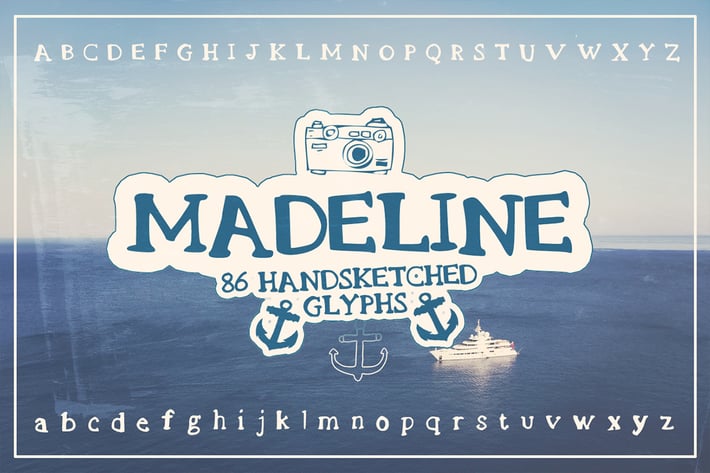
Madeline Handsketched Font
Introducing the first font from Layerform.com, we are proud to present this cute handsketched Font for you all. It comes in .TTF format and has a friendly, cute feel to it.
It was made by sketching out the Glyphs and meticulously scanning them in one by one and composing them digitally. The overall feel of the font is meant to be carefree, loose yet still with a slab serif feel giving it some solidarity!